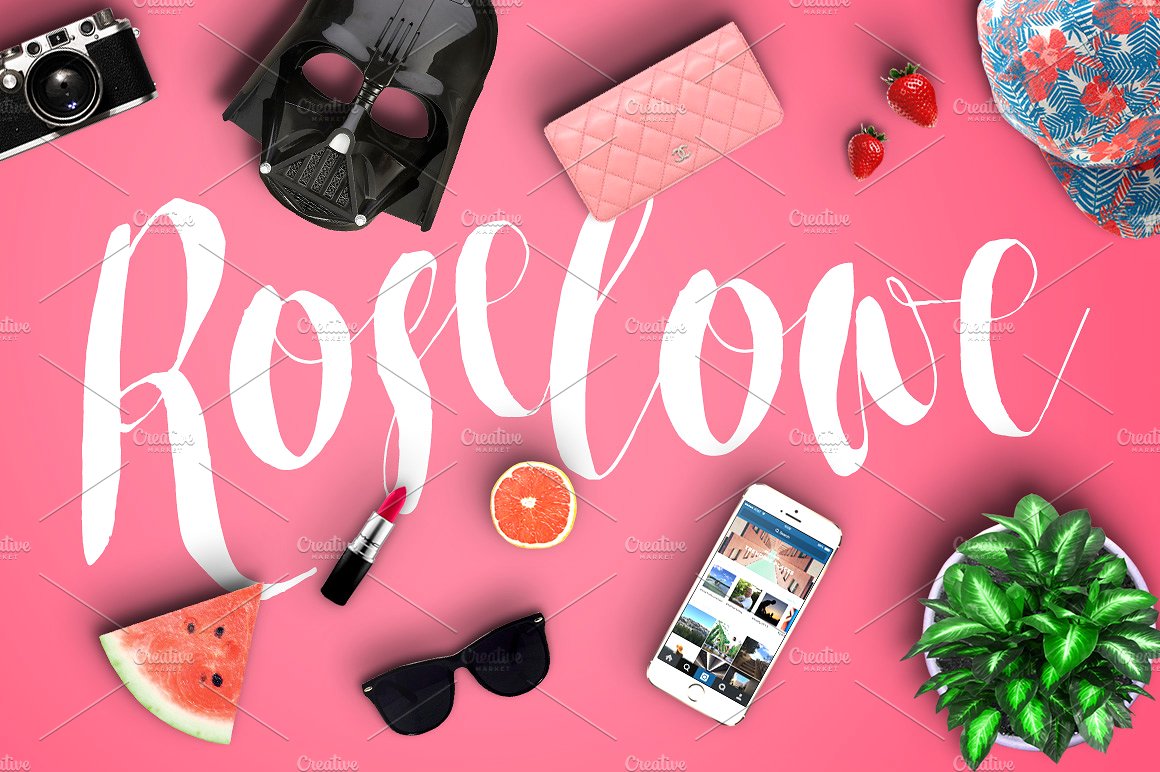
Roselowe Typeface
Give your designs an authentic brush handcrafted feel. “Roselowe Typeface” is perfectly suited to branding, signature, stationery, logos and much more.
| Classification: | Display Fonts, Handwritten Fonts, Script Fonts |